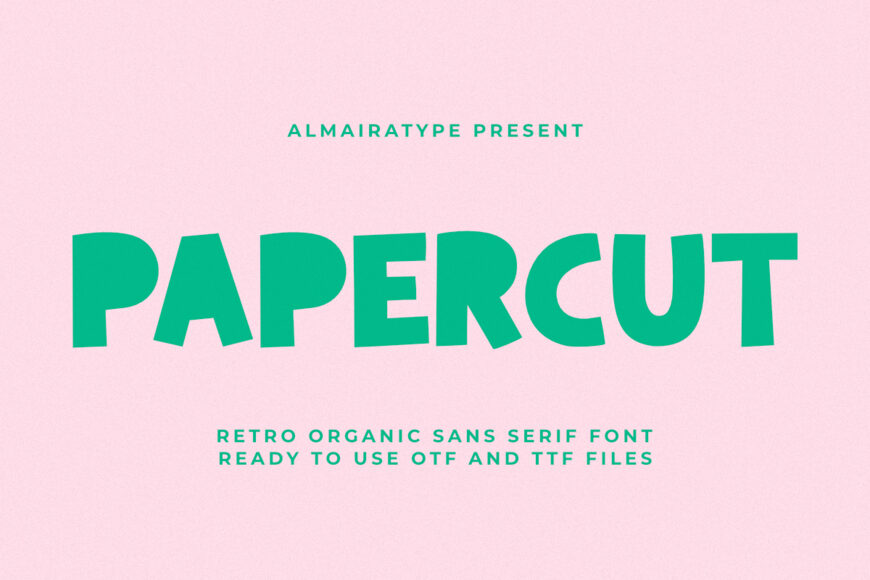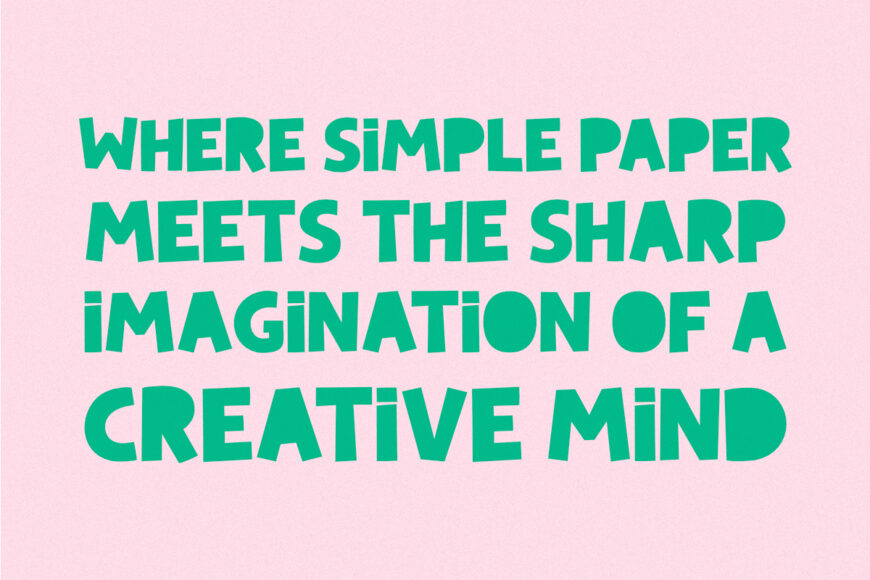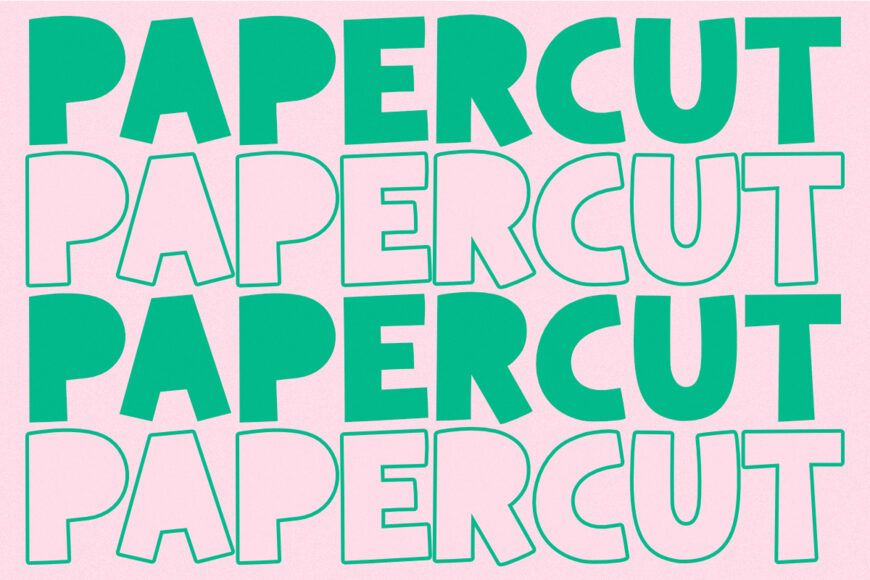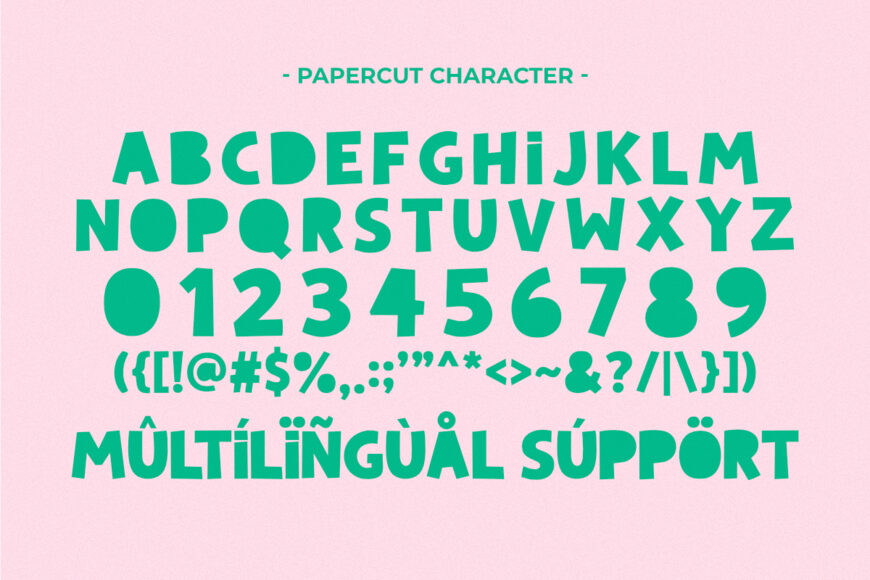
Papercut is a retro organic sans serif font meticulously designed to bring a delightful vintage warmth and high-impact aesthetic to your modern creative projects.
Featuring a handcrafted paper craft cutout anatomy with a robust, bold display weight and playful geometric contours, this typeface beautifully bridges the gap between classic 70s nostalgia and contemporary commercial design trends.